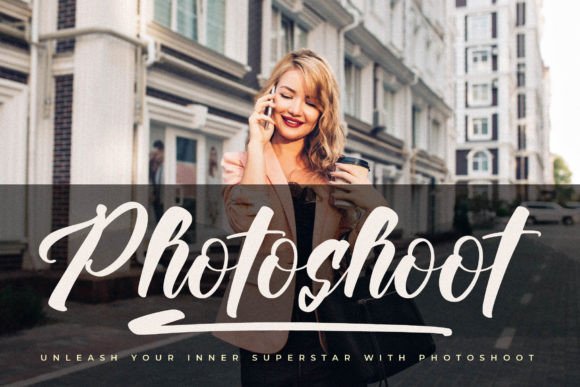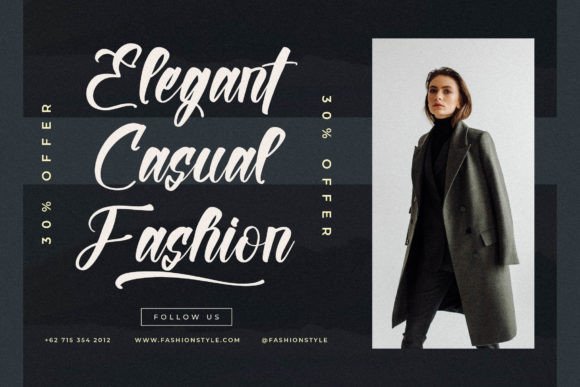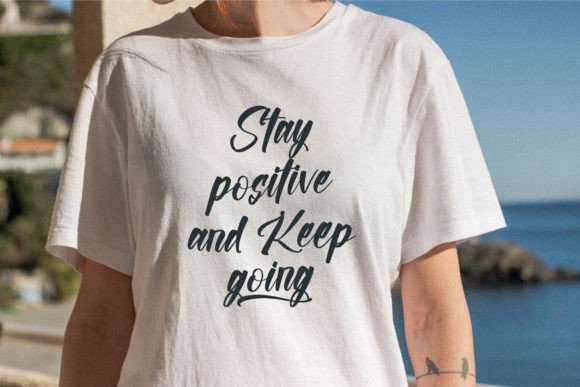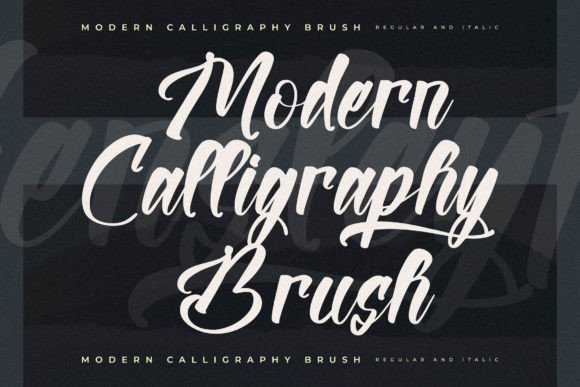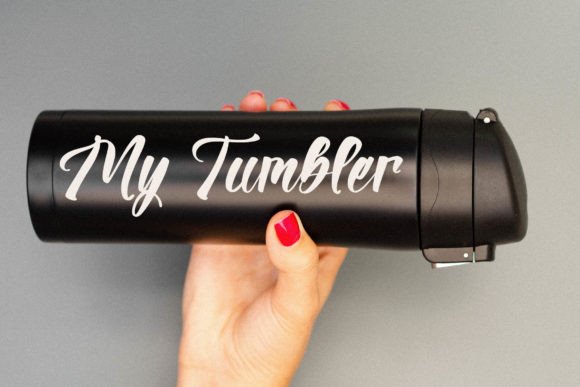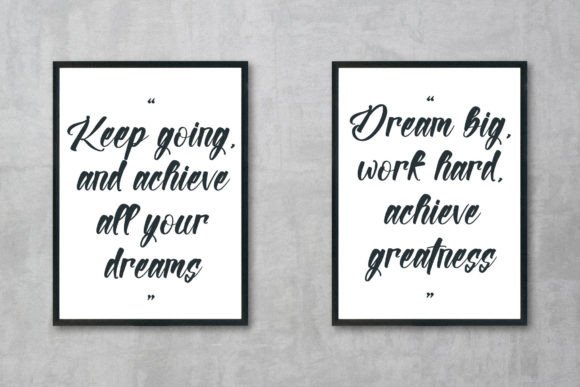
Introduction to Hensleyton Font
Do you ever find yourself rummaging through your stash of design resources, searching for that perfect font to elevate your creative project? I’m sure we’ve all been there. The struggle is real, especially when you’re working on a project that requires a unique touch. But what if I told you that you’ve just stumbled upon a game-changer?
Meet the Hensleyton Font, a modern calligraphy brush from Glorytype Studio that’s taking the design world by storm. With its high-quality design and versatility, this font is perfect for any project that needs a beautiful script taste. Whether you’re working on logos, branding projects, or even homeware designs, the Hensleyton Font is an invaluable resource that’s sure to take your designs to the next level.
Key Features of Hensleyton Font
- Hensleyton Font features a range of characters, including uppercase and lowercase letters, numbers, and special symbols, making it a comprehensive design resource.
- This font’s unique characteristics, such as its modern and elegant design, make it an excellent choice for creative projects, including branding, packaging, and editorial design.
Honest Review: Hensleyton Font
I recently had the chance to work with the Hensleyton Font, and I must say, it’s been a game-changer for my creative projects. This font is a high-quality design resource that’s perfect for any project that requires a touch of elegance and sophistication.
- What works well: ✨ The Hensleyton Font is incredibly versatile, making it a great addition to any design project. Its clean and modern design makes it perfect for use on logos, headings, and even body text. I’ve also been impressed with its high-quality vector graphics, which ensure seamless scalability.
Overall, I’m thoroughly impressed with the Hensleyton Font. It’s a top-notch design resource that’s perfect for any creative project. While it may have a few minor limitations, its benefits far outweigh its drawbacks. If you’re in the market for a high-quality font, I highly recommend giving the Hensleyton Font a try.